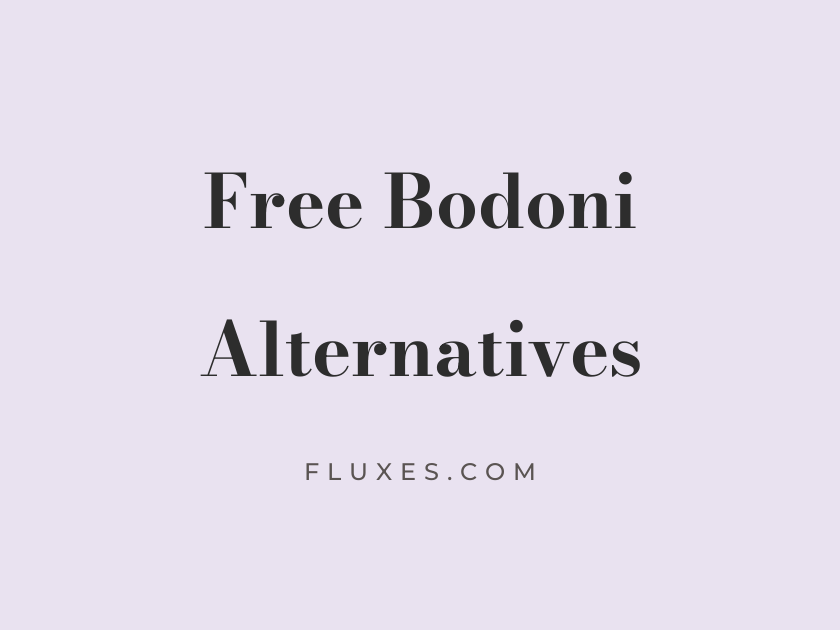
14 Best Free Fonts Alternatives to Bodoni
Bodoni remains one of the most recognizable typefaces in fashion and editorial design, prized for its dramatic contrast between thick and thin strokes and its crisp, vertical stress. That same drama is exactly what makes it tricky to use well online: genuine Didone-style faces are rare, and many so-called substitutes flatten the contrast until the character disappears. The good news is that Google Fonts has quietly built up a solid bench of free alternatives that capture the spirit of Bodoni, from close historical revivals to looser, more contemporary takes on the high-contrast serif.
1. Bodoni Moda
Haute couture arrives this autumn in Milan
If you want the real thing without a license fee, this is it. Bodoni Moda is a variable-font revival built directly from Giambattista Bodoni’s original designs, with optical sizing that keeps the hairlines from disappearing at small sizes. It is the obvious starting point for anyone searching for a free Bodoni replacement rather than a mere lookalike.
2. Playfair Display
Elegance defined by contrast and confidence
Playfair Display has become the default high-contrast serif for web designers, and for good reason. Its widened proportions and generous curves give it a stately, editorial feel that reads as luxurious in headlines without tipping into fragility, though it can look a little heavy-handed if overused across a whole page.
3. Fraunces
Warm serifs with an old-world charm
Fraunces takes the Didone contrast concept and softens it, adding a wonky, almost hand-finished quality to the terminals. It suits brands that want the elegance of Bodoni but with more warmth and personality, particularly food, lifestyle, and craft-adjacent projects. The variable axes let you dial the contrast and softness up or down until it fits the mood exactly.
4. Abril Fatface
Bold headlines with Bodoni-level drama
This one leans hard into the display end of the Didone spectrum. Thick, confident strokes and tight spacing make Abril Fatface superb for oversized headlines and posters, but its heaviness means it should stay large; at small sizes the fine hairlines clog and lose definition.
5. DM Serif Display
Refined lines for modern luxury branding
DM Serif Display strikes a nice balance between classical proportions and a slightly quirky, contemporary edge. It has enough stroke contrast to feel properly Didone while staying clean and legible on screen, which makes it a dependable choice for magazine-style headers and pull quotes.
6. Cormorant
Delicate letterforms inspired by Garamond and Bodoni
Cormorant is built for elegance at a whisper rather than a shout. Its thin strokes and tall proportions borrow the refinement of Bodoni while feeling closer to a fine engraving, so it excels in wedding invitations, poetry, and luxury packaging copy. It is not a font for body text or tiny captions; the delicacy that makes it beautiful also makes it fade at small sizes.
7. Italiana
Timeless sophistication for fashion labels
Named for the country that gave the world Bodoni himself, Italiana is a slender, all-caps-friendly serif that feels tailor-made for fashion logotypes and masthead treatments. Its extreme thinness photographs beautifully on light backgrounds but disappears on busy or textured ones, so use it with restraint and plenty of negative space.
8. Marcellus
Classic proportions for editorial storytelling
Marcellus offers a calmer, more restrained cousin to Bodoni’s flourish. The contrast is present but gentle, giving it a versatility that suits both headlines and longer subheads without ever feeling shouty.
9. Prata
Understated elegance for luxury interiors
There is a quiet formality to Prata that recalls old engraved signage and fine stationery. It carries just enough stroke variation to nod at the Didone tradition while remaining sturdy and legible, making it a safe pick for hospitality, real estate, and interior design sites that want polish without excess drama.
10. Gilda Display
Condensed glamour for fashion magazine covers
Gilda Display compresses the classic high-contrast serif into a narrower frame, which gives it a sleek, fashion-editorial energy. It is particularly good for cover lines and vertical headline treatments where space is tight but impact still matters.
11. Yeseva One
Decorative flair with a vintage soul
This one trades restraint for personality. Yeseva One rounds off its serifs and thickens its curves into something closer to a vintage poster face, so it works best for playful branding, packaging, and invitations rather than strict luxury contexts.
12. Rozha One
Distinctive serifs with global editorial appeal
Rozha One brings an unusual, slightly exotic silhouette to the high-contrast serif category, with wide, sturdy letterforms that still carry a Didone-like thick-thin rhythm. It stands out in headline use precisely because it does not try to be a straightforward Bodoni clone.
Generous letter spacing and plenty of white space go a long way with this style. Cramped layouts fight against the elegance these fonts are meant to deliver.
Whether you need a faithful revival or a looser interpretation of the Didone tradition, there is a free option here for nearly every project that once called for Bodoni. Download a few, test them in context, and let the contrast do the talking.